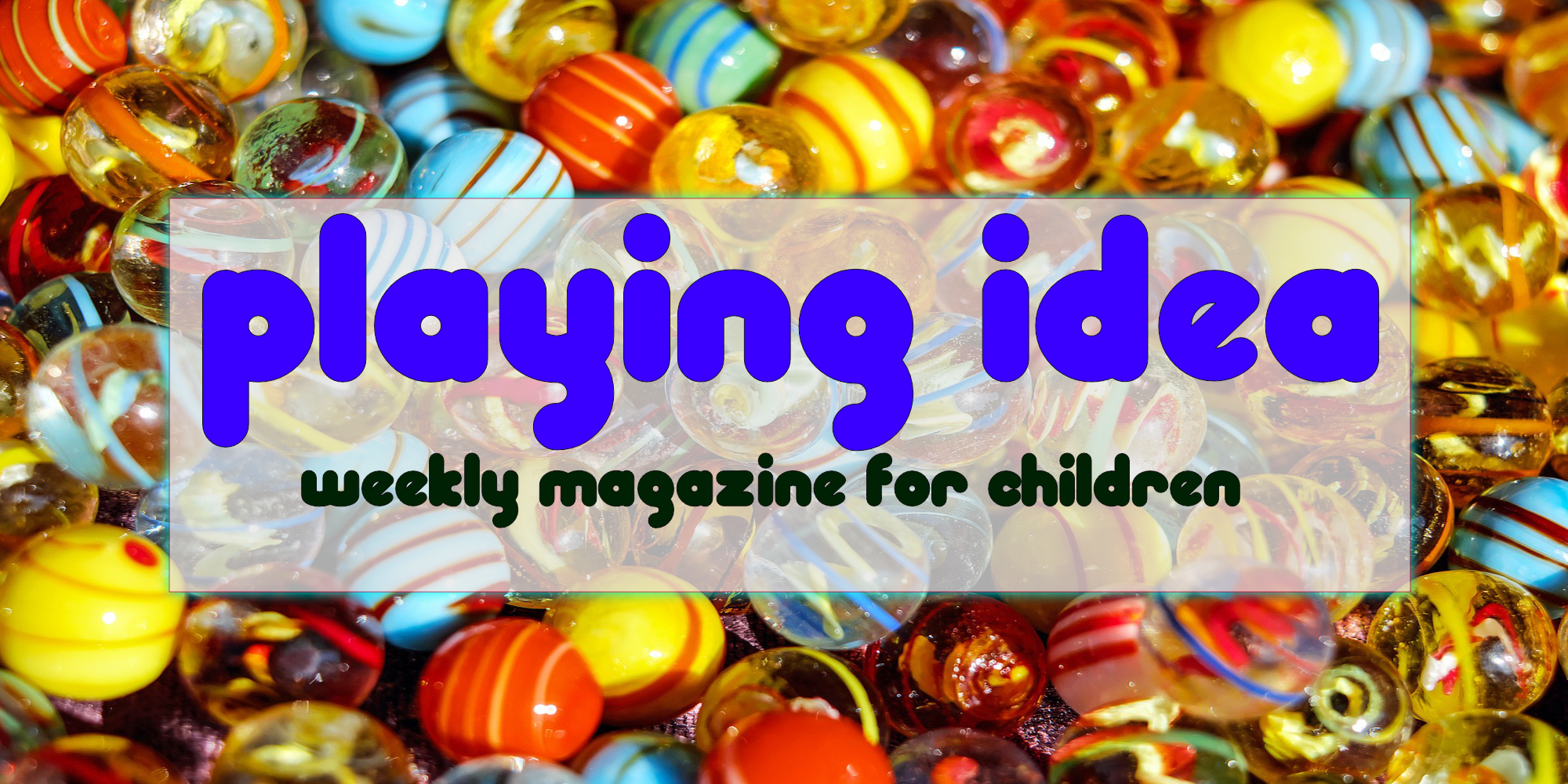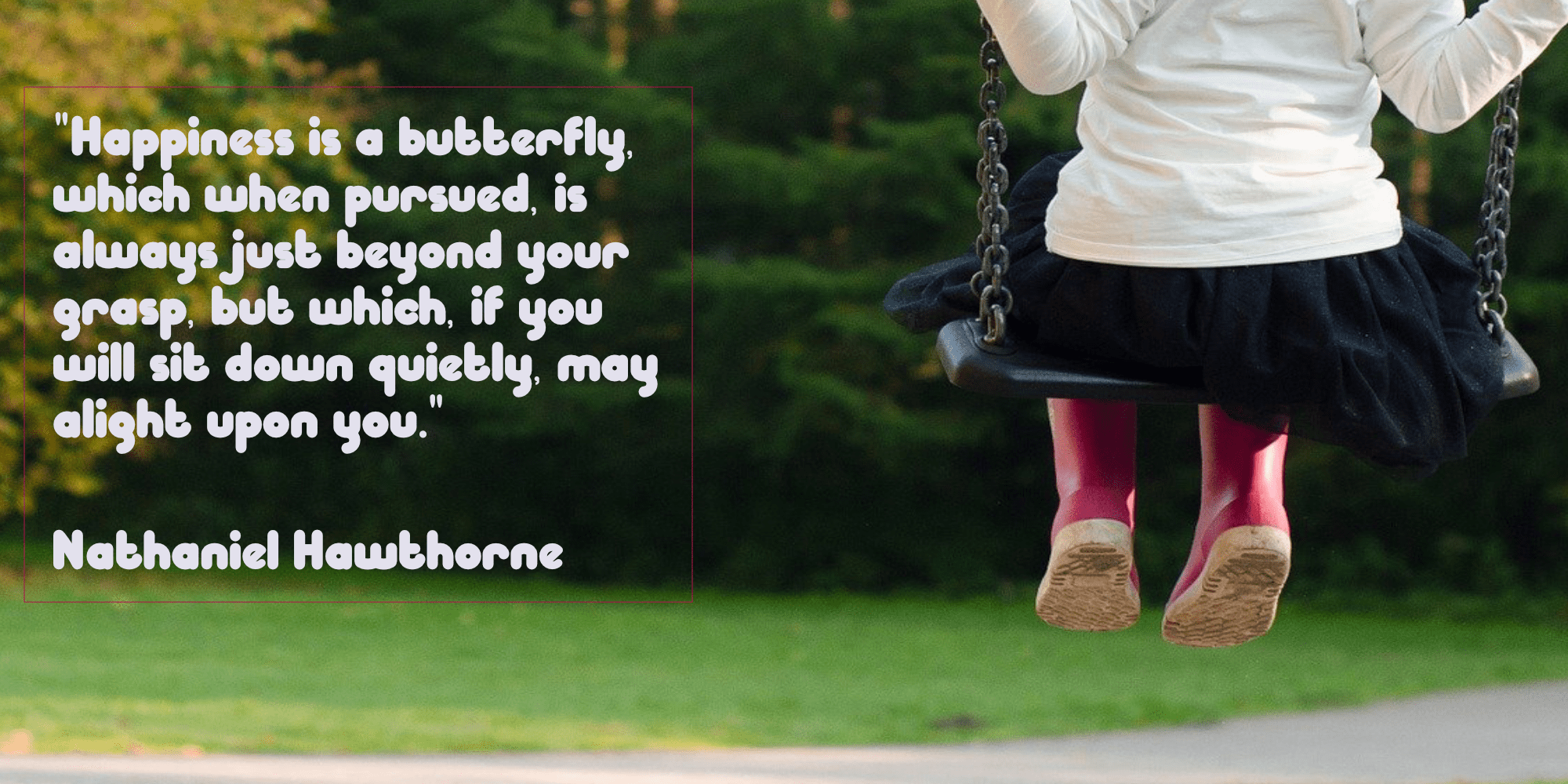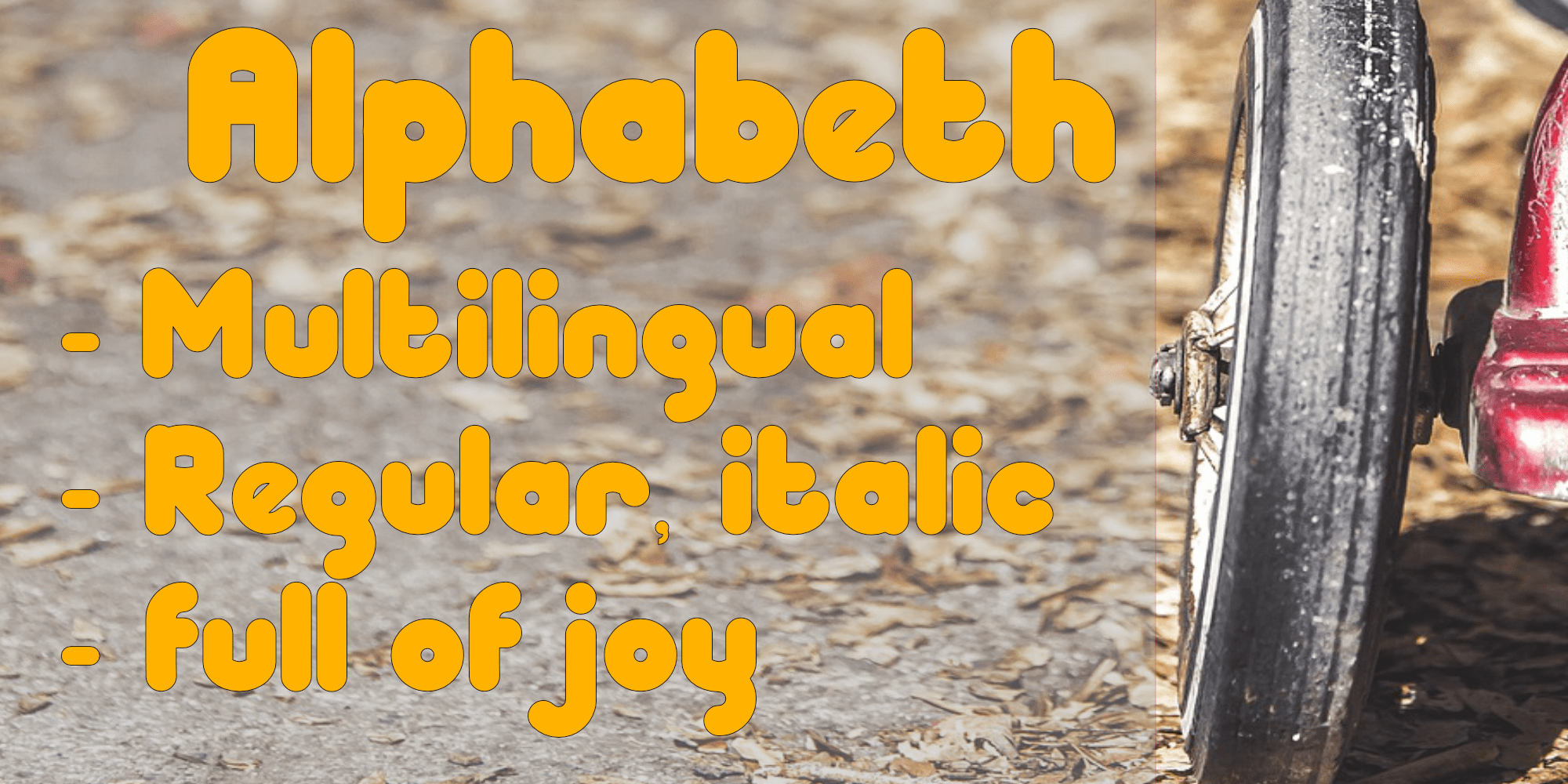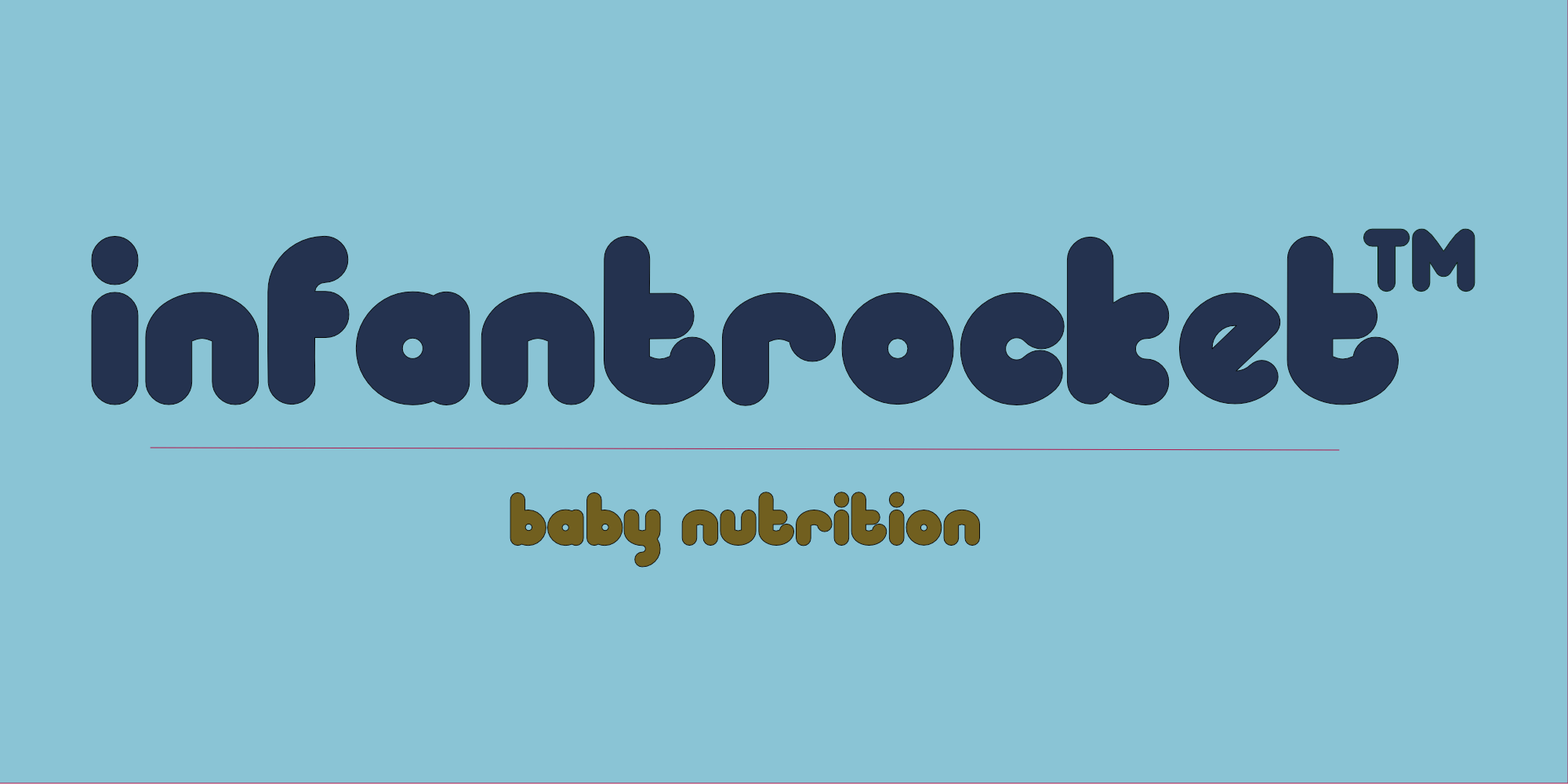
Murisa Babyfish Font
Murisa Babyfish Script Font
This is a cool, robotic display font. It can be applied to various creations that could benefit from a futuristic touch.